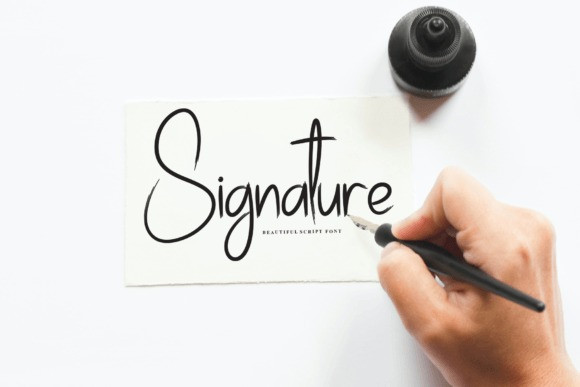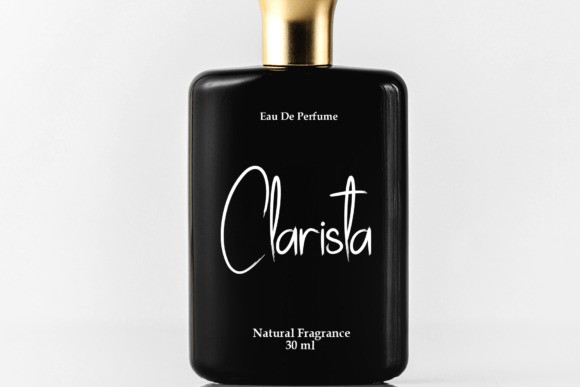
Sunday Calligraphy Font
Sunday Calligraphy Font – a stylish handwritten font, exudes sophistication with its gracefully crafted letterforms. The fluid strokes and subtle details lend an air of refined charm, making it ideal for projects that demand a touch of class. Elevate your designs with Sunday Calligraphy, where style meets handwritten grace.